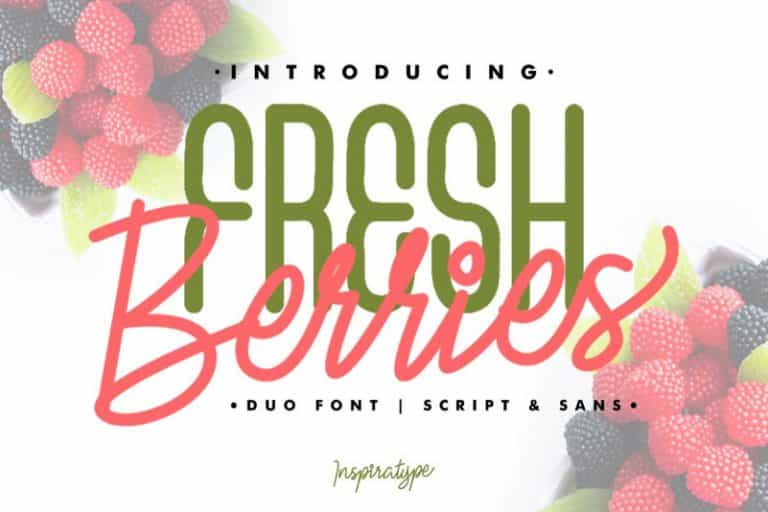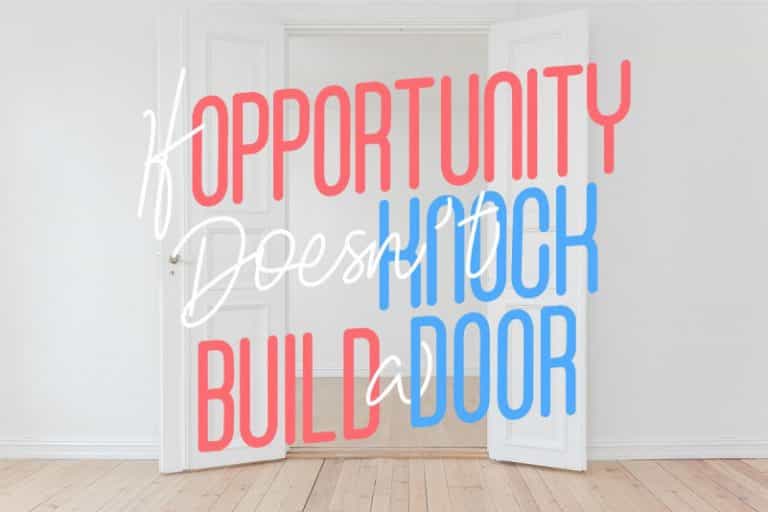
Discover Fresh Berries Font Duo, part of the Sans Serif Handwritten collection—a versatile and unique font perfect for adding a personal touch to your projects. Download it for free and enjoy crafting designs with style, from invitations to social media posts. This font is available exclusively for personal use, giving you the freedom to create without limits. Unlock your creativity with Fresh Berries Font Duo today!
The new font is FreshBerries – Script & Sans Font. Fresh Berries Font Duo is a hand made font display which was inspired by the classic posters. It is accompanied by the uppercase, lowercase, numerals, punctuations and so many variations on each character including OpenType alternates, common ligatures and also additional swash to let you customize your designs. Ideal for Logotype, Letterhead, Poster, Apparel Design and Label.